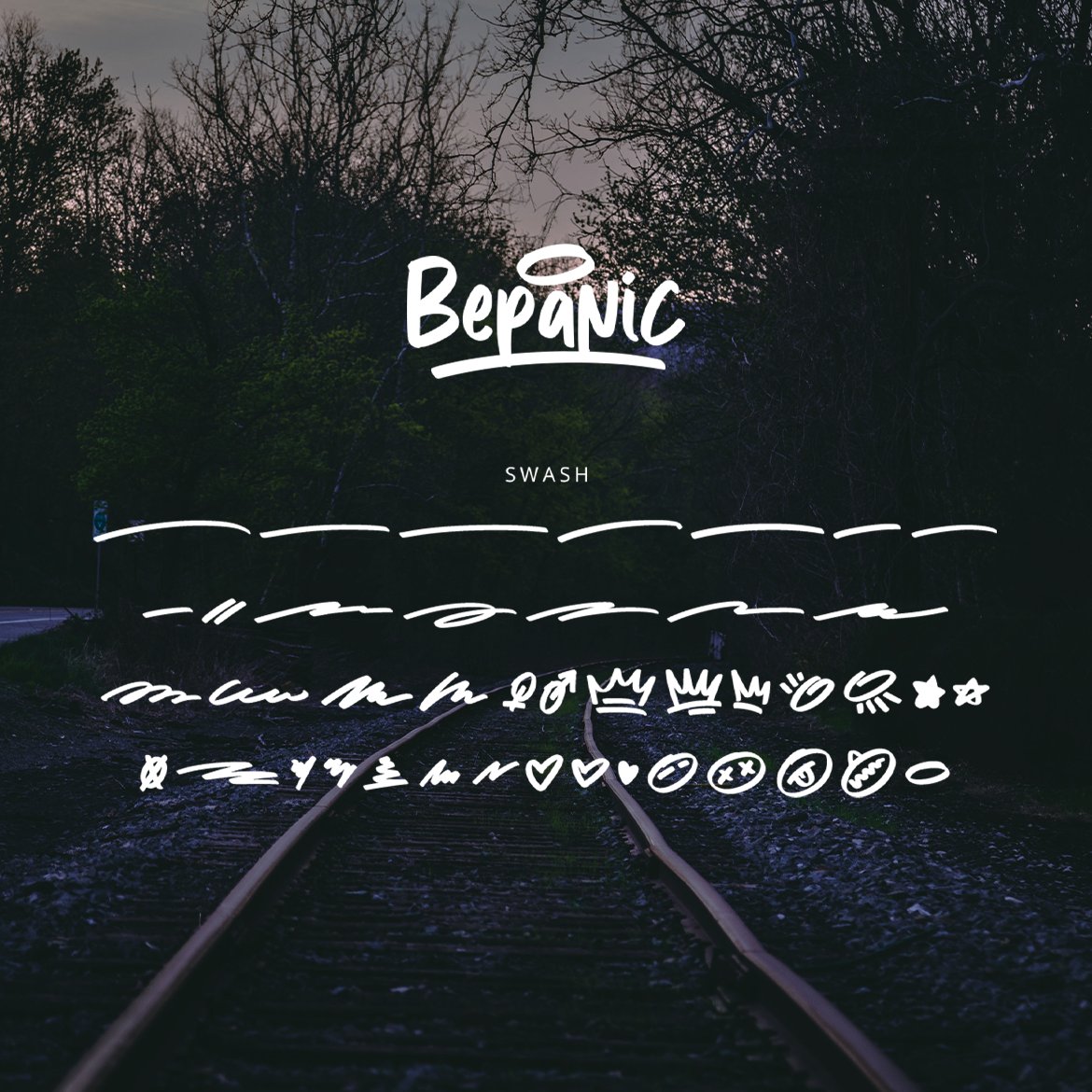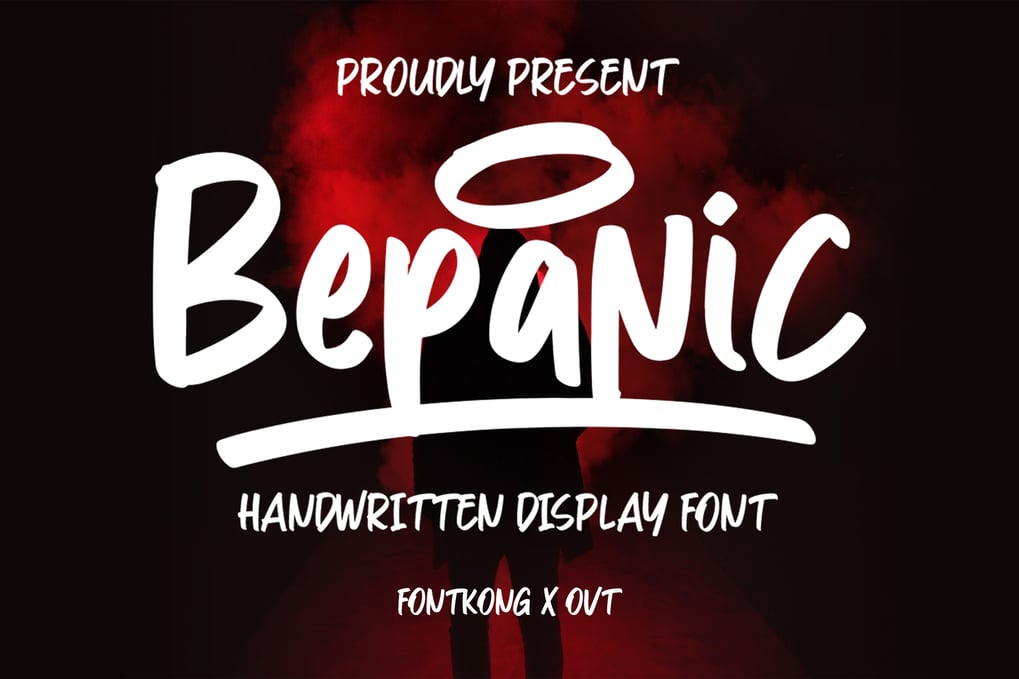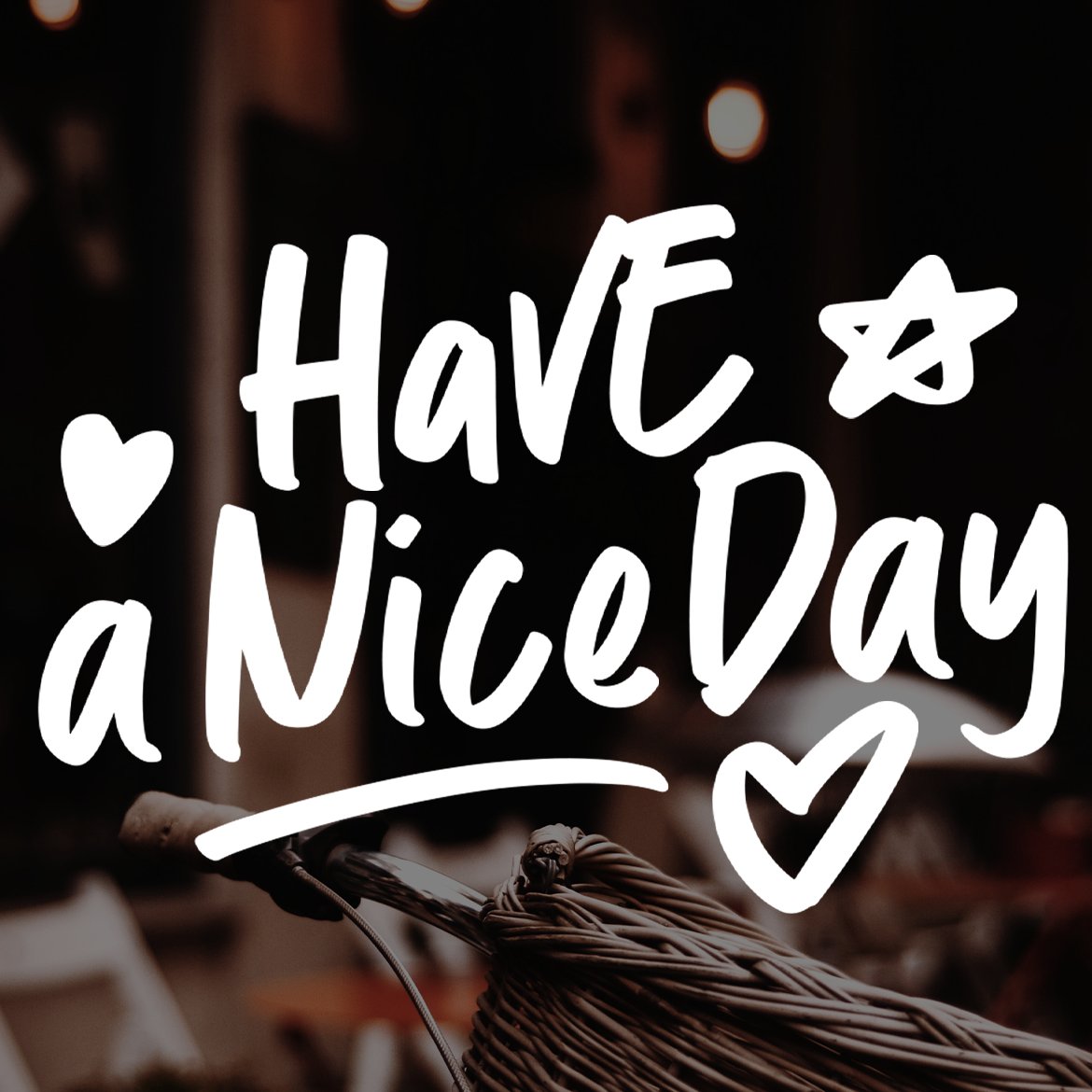
Bepanic – Handwritten Display Font
Ideal for posters, logos, album covers, social media graphics, and branding, Bepanic’s vibrant and spontaneous strokes provide a distinctive and memorable aesthetic. Each character is meticulously crafted to reflect the raw authenticity of hand-drawn lettering, ensuring your designs resonate with personality and vigor.